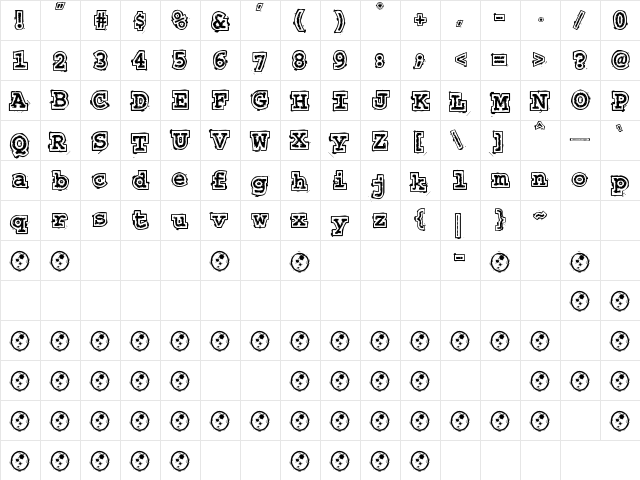
50's Headline DSG Regular
Design Context for 50's Headline DSG Typeface
50's Headline DSG is a composed and adaptable typeface that performs quietly and consistently across a wide range of design contexts.